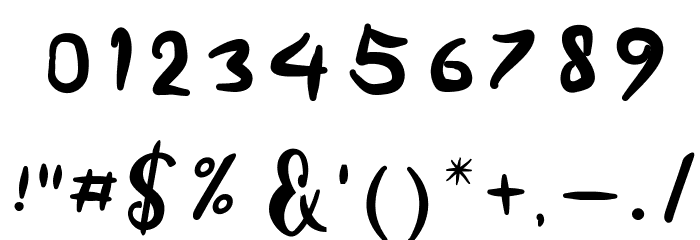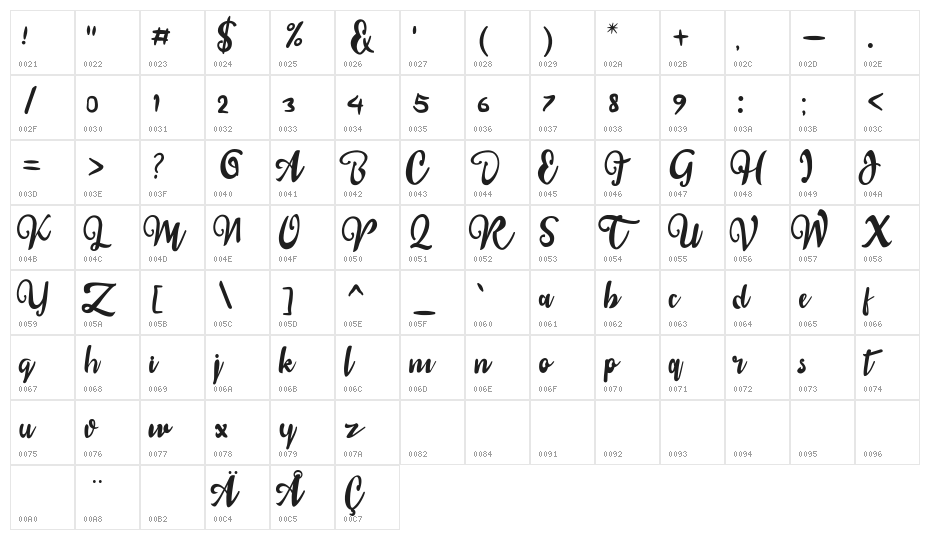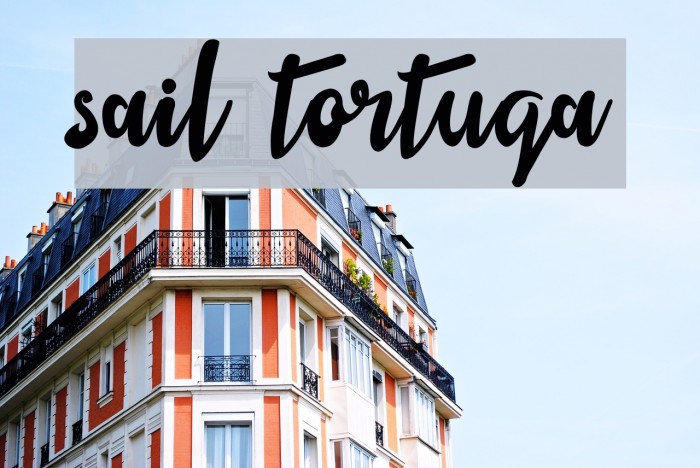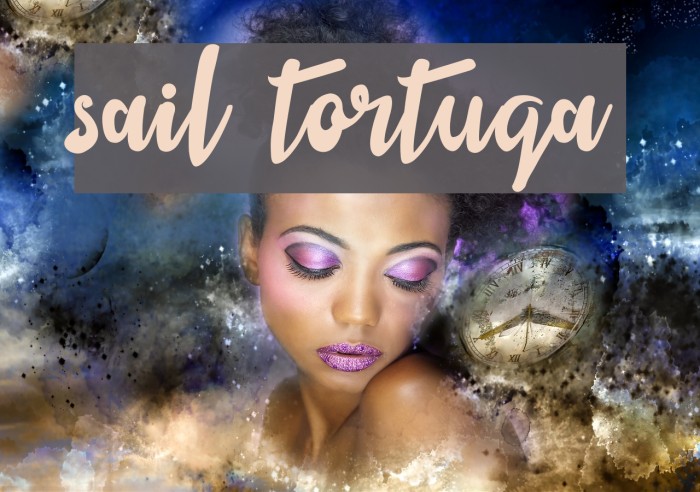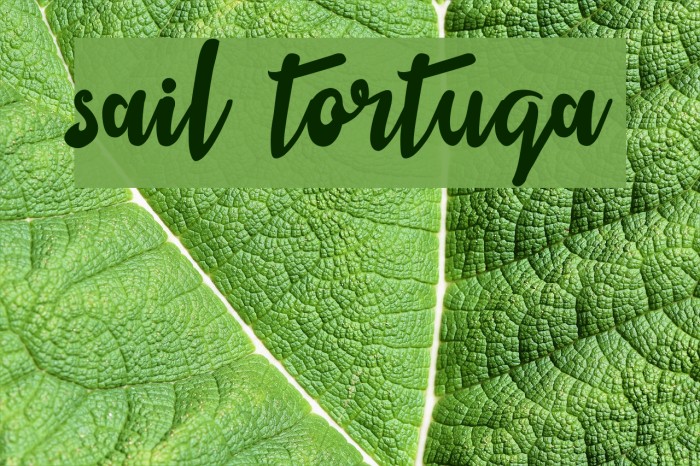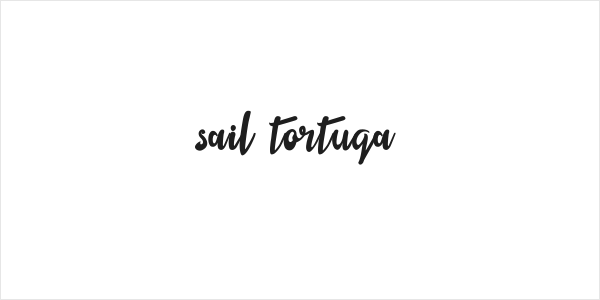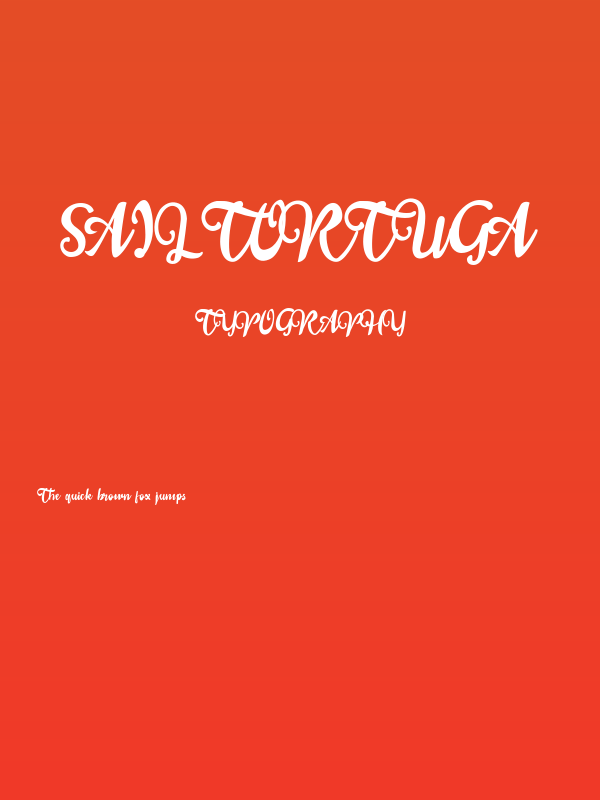
sail tortuga Font
sail tortuga Description
This font exudes a playful and energetic vibe with its bold, flowing script style. The characters are crafted with a sense of movement, featuring smooth, curving lines that give it a handwritten feel. The uppercase letters are particularly expressive, with dramatic flourishes and loops that add a touch of elegance and flair. The lowercase letters maintain a consistent style, complementing the uppercase with their own subtle curves and connections. The numerals are clear and bold, ensuring readability while maintaining the overall aesthetic. Special characters are thoughtfully designed to match the font's lively character, making it versatile for various creative applications.
Use CaseLogos, Headlines, Invitations
Proposed ProjectsIdeal for branding, invitations, greeting cards, and creative projects that require a personal touch.